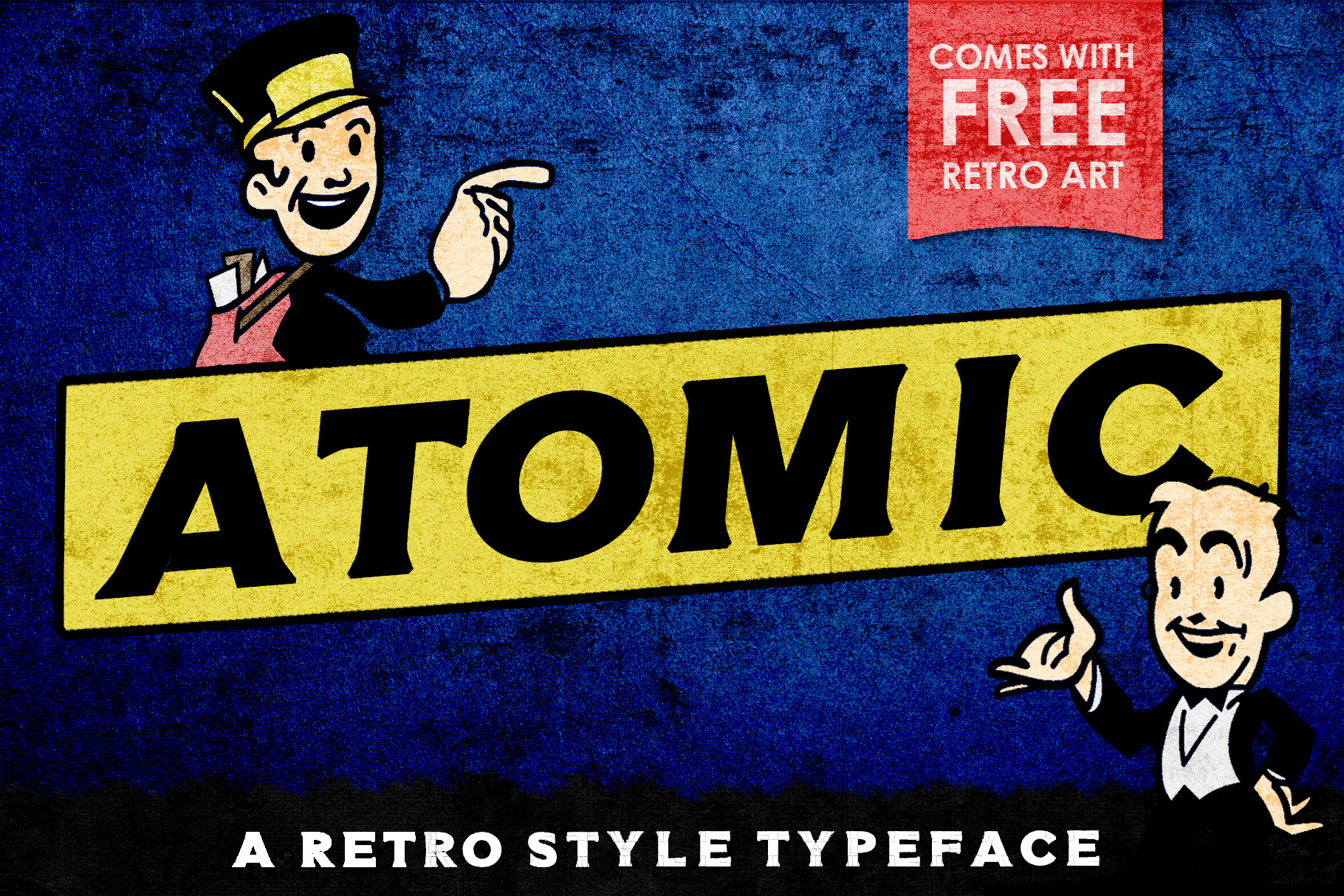
ATOMIC Typeface
Atomic is a unique and creative design that has been passionately handcrafted to give you a retro style typeface. It contains uppercase, lowercase, numbers, and special characters.